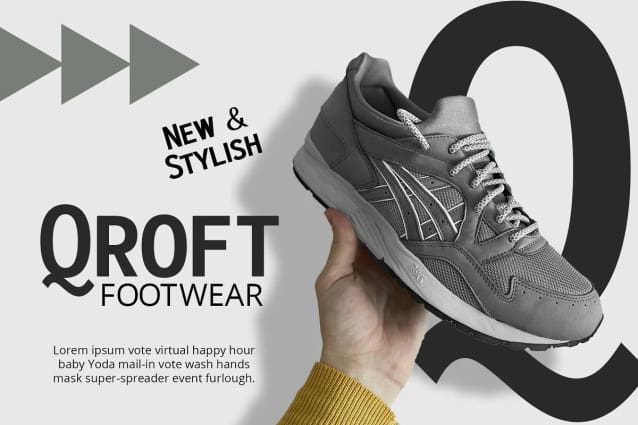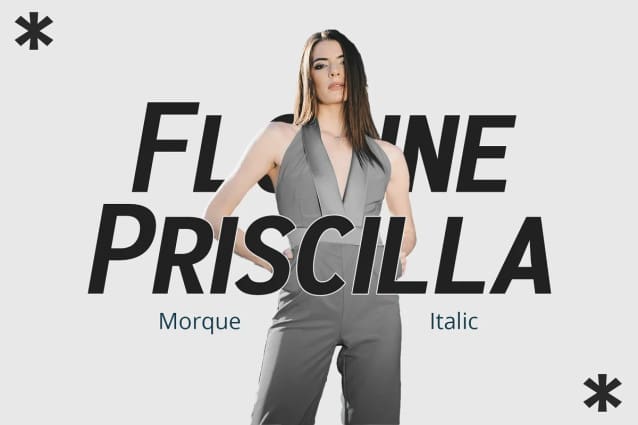
Morque Font
Morque Font – Sans Serif Font: Bold and Expressive. Boldness in Every Letter: Morque – Sans Serif Font stands out with its all caps design. It’s perfect for impactful titles and displays. This font commands attention in any visual space.
Ideal for Titles and Displays: Morque’s bold structure makes it ideal for titles and visual displays. It enhances the readability of headlines. This font is a go-to for designers aiming for a strong statement.
Contemporary and Versatile: With a contemporary feel, Morque Font suits various design needs. It’s versatile for digital and print media. This font seamlessly adapts to different visual contexts, from websites to posters.